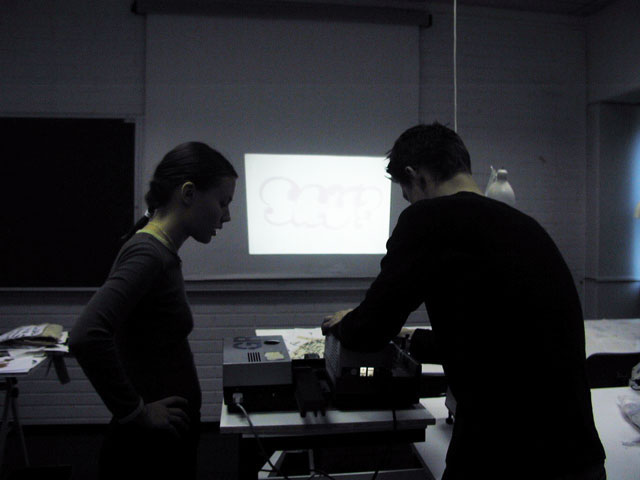
![]() ![]() ![]() layered display type basic info : presentation half way : ![]() Assignment The group was asked to design a typeface which exploits the possibilities of layers. How far is it possible to go and how ornaments, patterns, colours and overlaps affect the design? 4+ layers were required to sufficiently test how they work. Process From the beginning the group's work was very idea-emphasized and experimental. After the initial sketching, the group decided that instead of purely working with the forms of the letters, innovative ways of using layers should be searched for. To further this, the group chose an existing typeface as one starting point. OCR-B, a monospaced typeface, was selected for its clear form. Quite soon after the first experiments the group became interested in the character's counterforms and the surrounding space. The space was divided into overlapping areas which were placed on individual layers. Thus, with a combination of two layers the character could already be perceived. Later on the areas were allowed to partly overlap the letterform. The next step was to try different fillings within areas defined in this manner. Each member of the group made a set of layers which were then combined together. However, the group felt that this approach was putting the pictoral elements forward instead of the letterforms. After the group had made many testings with varying printed and on-screen layers, it was thought that the developing should be extended to 3D. When a series of spatial experiments had been tried, the group again felt that it was getting too far from the typedesign part of the assignment. Final Solution To combine the letterdesign aspect of the assignment with the many experiments, the group decided to take just one word which would then be shaped into a word-image. This way the group felt, that the possibilities of the different layers could be properly visualized. The final work includes six coloured layers and an outline layer. These layers can be mixed together and used for example three at a time. The layers are designed so that the word-image is legible even with a few of the them in use. ![]() ![]()